Exploring the Best Modern Japanese Fonts
Modern Japanese fonts encompass a wide range of typefaces that are specifically designed to reflect contemporary Japanese design trends. These fonts often feature clean lines, elegant strokes, and a balance between simplicity and sophistication. They are widely used in commercial design, branding, advertising, and various creative projects to convey a sense of modernity and cultural relevance.
Importance of Modern Japanese Fonts in Commercial Design
Modern Japanese fonts play a crucial role in commercial design. They not only enhance the aesthetic appeal of visual materials but also contribute to effective communication with the target audience. Here are some reasons why modern Japanese fonts are important in commercial design:
1. Cultural Relevance: Using modern Japanese fonts can help businesses connect with the local audience and demonstrate cultural sensitivity. By incorporating fonts that are popular and widely recognized in Japan, companies can create a sense of familiarity and authenticity in their designs.
2. Brand Identity: Fonts play a significant role in establishing a brand’s identity. Choosing the right modern Japanese font can help businesses portray a specific image and personality. For example, a sleek and minimalist font may be suitable for a high-end luxury brand, while a bold and playful font may be more appropriate for a youth-oriented company.
3. Readability: In commercial design, readability is crucial to effectively convey information. Modern Japanese fonts are designed with readability in mind, ensuring that the text is clear and legible, even at different sizes and in various contexts. This is especially important for signage, advertisements, and packaging, where quick and easy comprehension is essential.
4. Visual Impact: Modern Japanese fonts offer unique and visually appealing design elements that can make a significant impact on the overall aesthetics of a design. These fonts often feature intricate characters and calligraphy-inspired strokes, adding depth and visual interest to the composition.
5. Differentiation: In a crowded marketplace, standing out from competitors is essential. By using modern Japanese fonts, businesses can differentiate themselves and create a memorable impression. Unique and well-designed fonts can help capture attention and make a lasting impact on consumers.
Tips for Using Modern Japanese Fonts in Commercial Projects
To maximize the impact of modern Japanese fonts in commercial projects, it’s essential to follow best practices for integration, readability, and aesthetic appeal. By incorporating these tips, designers can create compelling and visually captivating designs that resonate with their target audience.
Best Practices for Integrating Modern Japanese Fonts into Commercial Designs
When integrating modern Japanese fonts into commercial designs, consider factors such as font pairing, hierarchy, and visual consistency to ensure a cohesive and harmonious layout. By strategically incorporating these fonts, designers can effectively convey the intended message and evoke the desired emotional response from the audience.
How to Ensure Readability and Aesthetic Appeal in Commercial Projects
Maintaining readability and aesthetic appeal is paramount when using modern Japanese fonts in commercial projects. Pay attention to factors such as font size, contrast, and spacing to optimize legibility and visual impact. Additionally, leverage the unique characteristics of modern Japanese fonts to enhance the overall aesthetic appeal of your designs.
Factors to Consider When Choosing high-quality Modern Japanese Fonts
When opting for high-quality modern Japanese fonts for commercial use, it’s crucial to assess factors such as font customization options, language support, and the provider’s reputation for delivering top-notch typography. By prioritizing quality and functionality, designers can ensure that their commercial projects benefit from the best modern Japanese fonts available.
Licensing and Legal Considerations for Commercial Use
Before integrating these fonts into commercial projects, it’s imperative to review the licensing terms and legal considerations associated with each font. Ensure that the chosen font’s license permits commercial usage and understand any restrictions or requirements outlined by the font provider. This proactive approach helps maintain legal compliance and protects the integrity of your commercial designs.
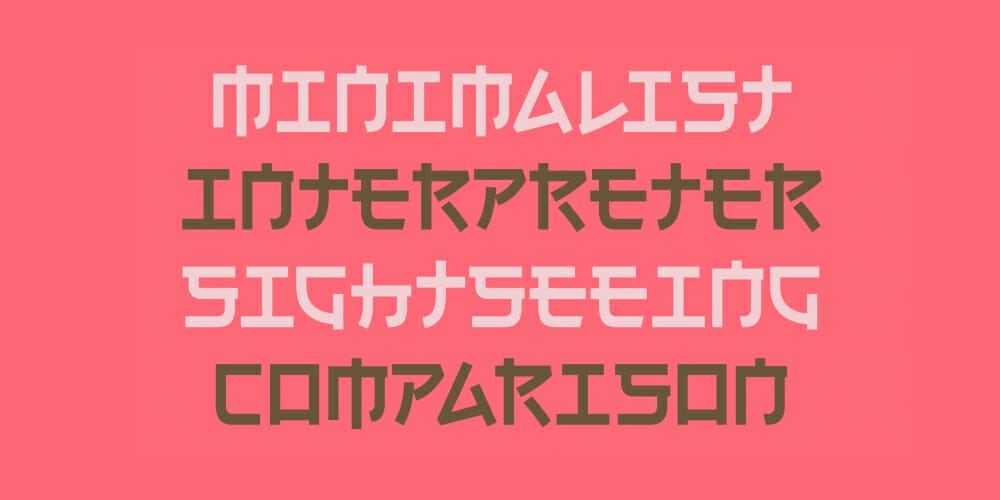
Nuku Nuku Font
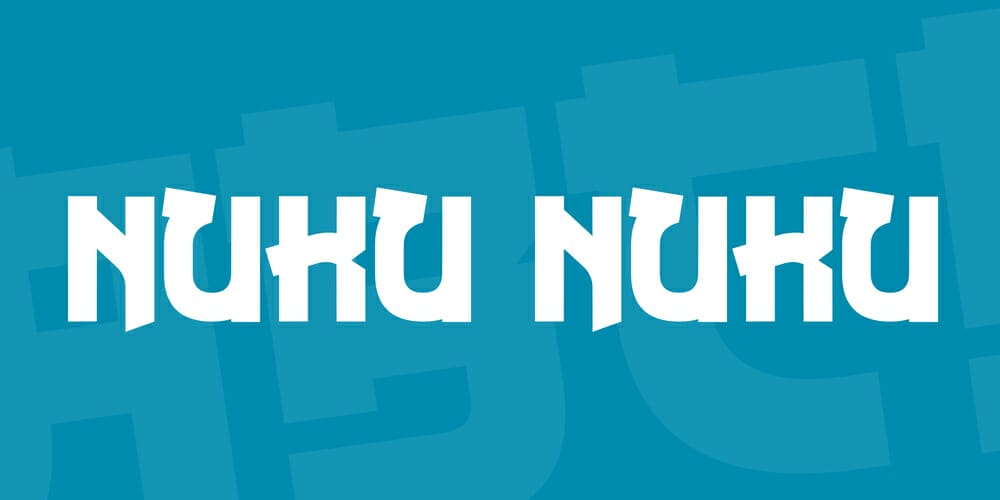
Noise Warning Font
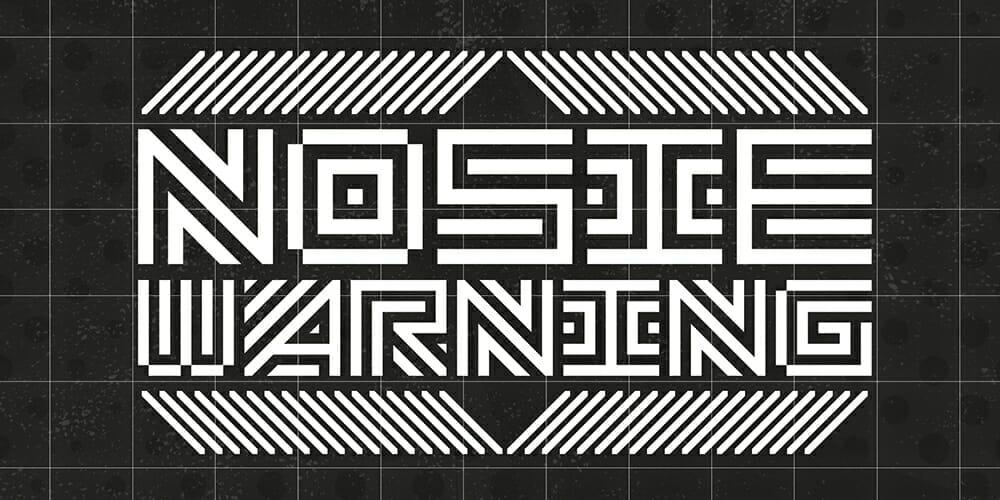
Kamikaze Font
Anson Sans Serif Font
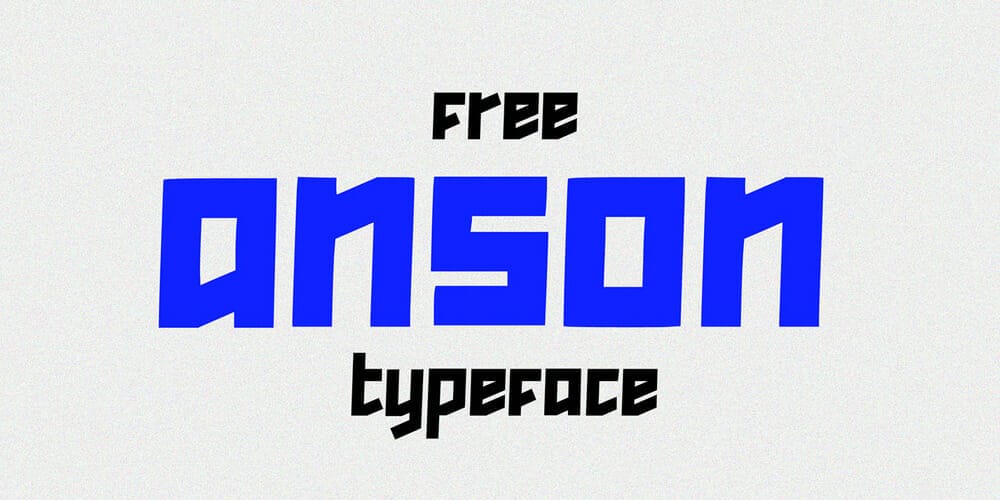
Ferrite Core
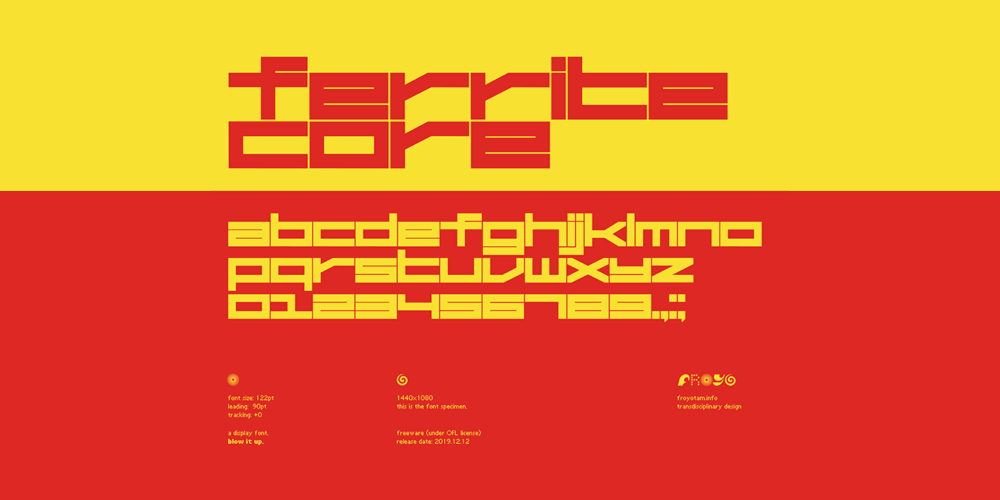
Lomax Font
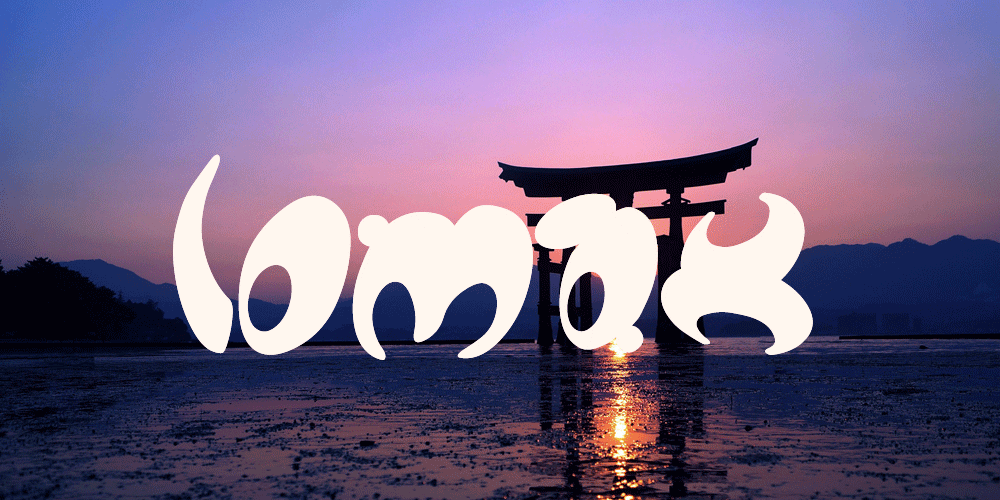
Zero Mojo Display Font
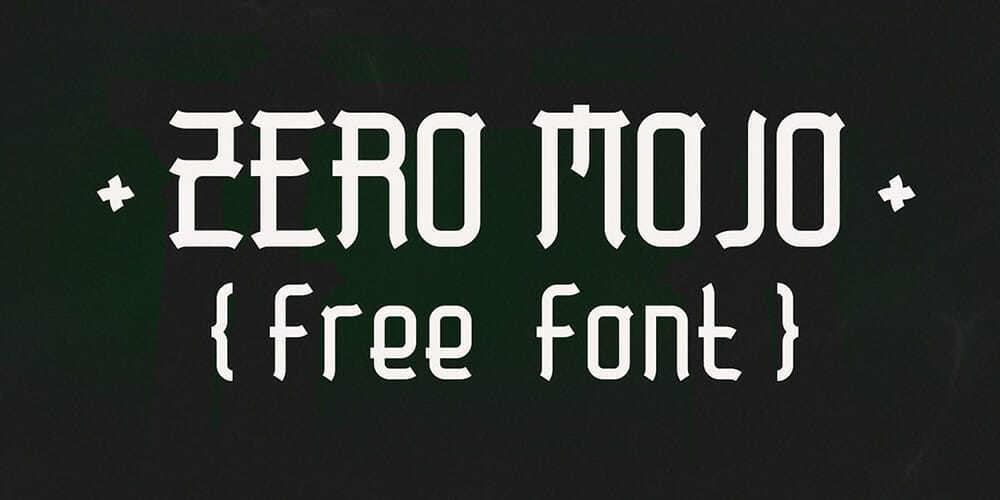
Kamikaze Font
Insert Font
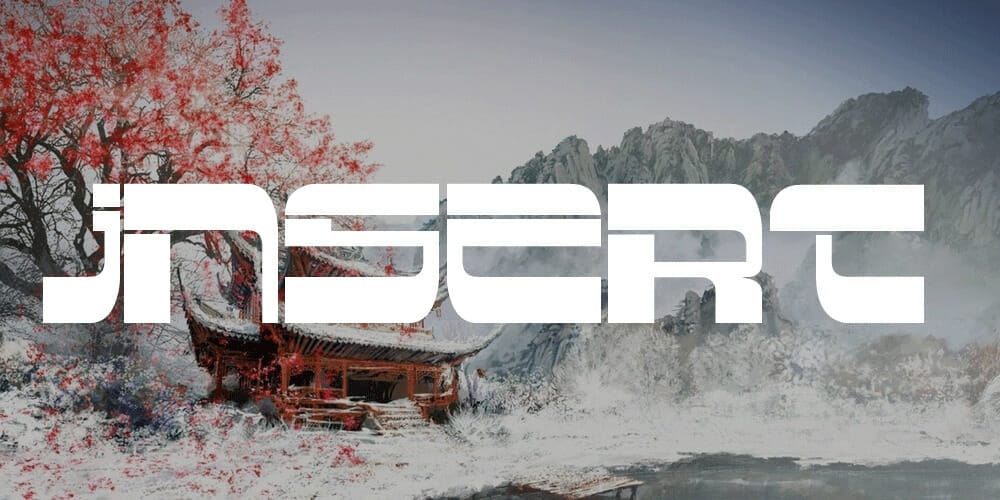
Ryomen Font
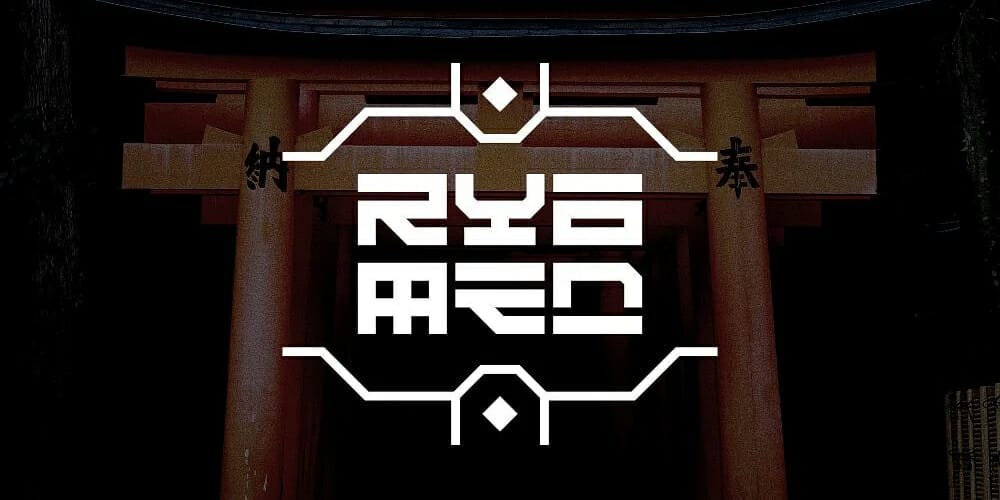
Tecnojap Font
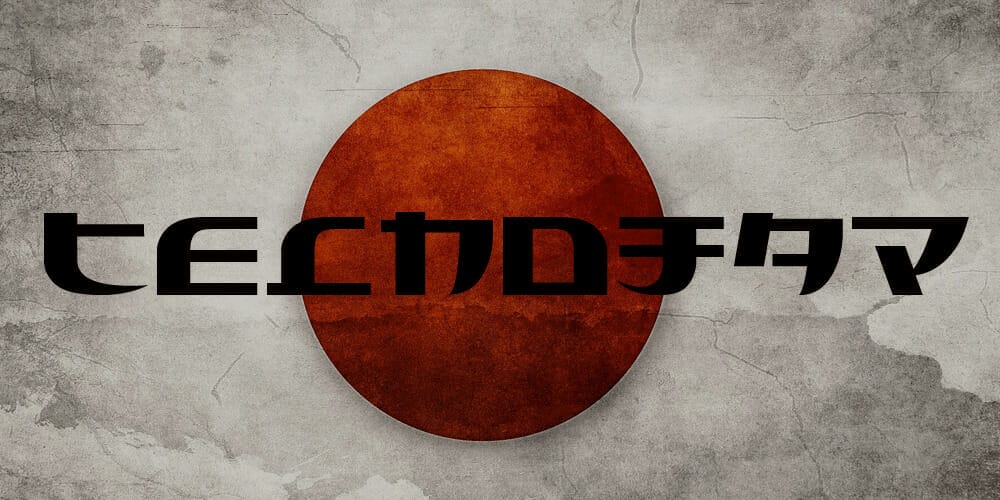
Free Japanese Font
Space Cadet NF Font
Japanese
Asian Hiro
Noto Serif Japanese
Japanese Brush
IPAex Gothic Font
Kosugi Maru Font